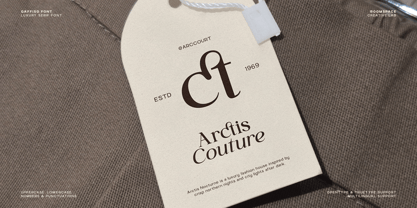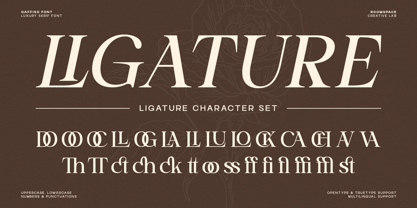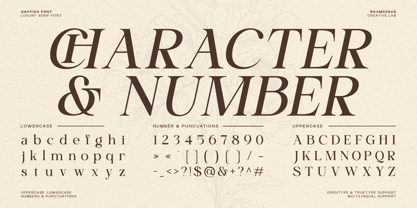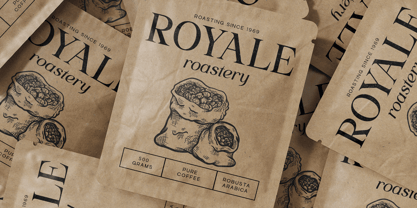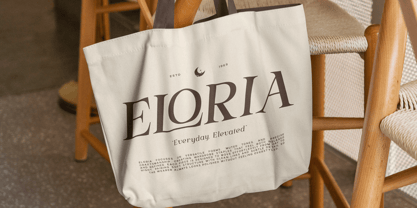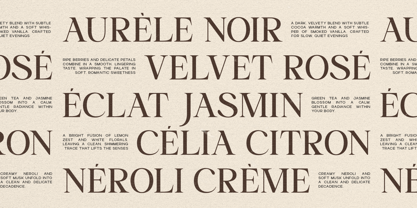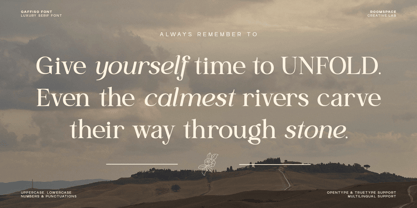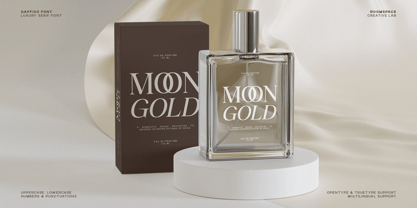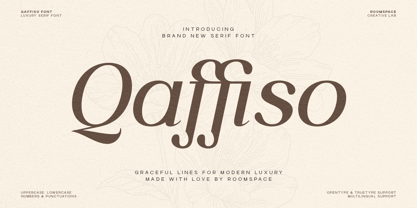
Qaffiso
by Jafar07
The Qaffiso Font Family was designed by Bakhrudin Ja'far and published by Jafar07. Qaffiso contains 2 styles and family package options.
Qaffiso is a luxury serif font with graceful curves, refined contrast, and modern elegance. Its tone feels sophisticated, premium, artistic, and timeless perfect for upscale branding, editorial layouts, boutique packaging, wedding stationery, and luxury lifestyle campaigns. Qaffiso blends high-end serif tradition with contemporary smooth forms, giving every design a polished, graceful, and elevated visual presence. Crafted with precision, Qaffiso brings a sense of sophistication and premium quality to every layout. Perfect for designers seeking an elegant serif with both classical beauty and modern delicacy. Perfect For : Branding, editorial design, packaging, fashion campaigns, wedding invitations, logos, and upscale identity systems.
Designers: Bakhrudin Ja'far
Publisher: Jafar07
Foundry: Jafar07
Design Owner: Jafar07